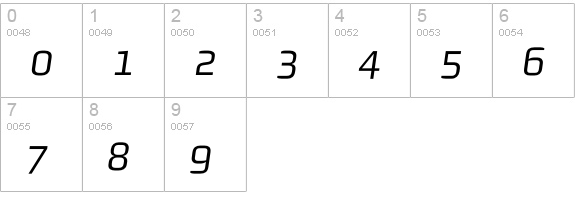
MorganSnOffice Oblique Font Details
MorganSnOffice Oblique is a distinctive, italic variant in the MorganSnOffice typeface family \xE2\x80\x94 well suited to design and typography projects.
Introducing MorganSnOffice Oblique font, a sleek and modern typeface designed to elevate your design projects to the next level. With its unique slanted style, MorganSnOffice Oblique exudes sophistication and professionalism, making it perfect for a wide range of applications such as branding, advertising, and editorial design. This versatile font offers a perfect balance between elegance and readability, making it suitable for both headlines and body text. Its clean lines and stylish curves will add a touch of refinement to any design, while its oblique angle adds a dynamic and eye-catching element. And the best part? MorganSnOffice Oblique font is completely free to download at FontsMarket.com! So why wait? Elevate your design projects today with this stunning and modern typeface.